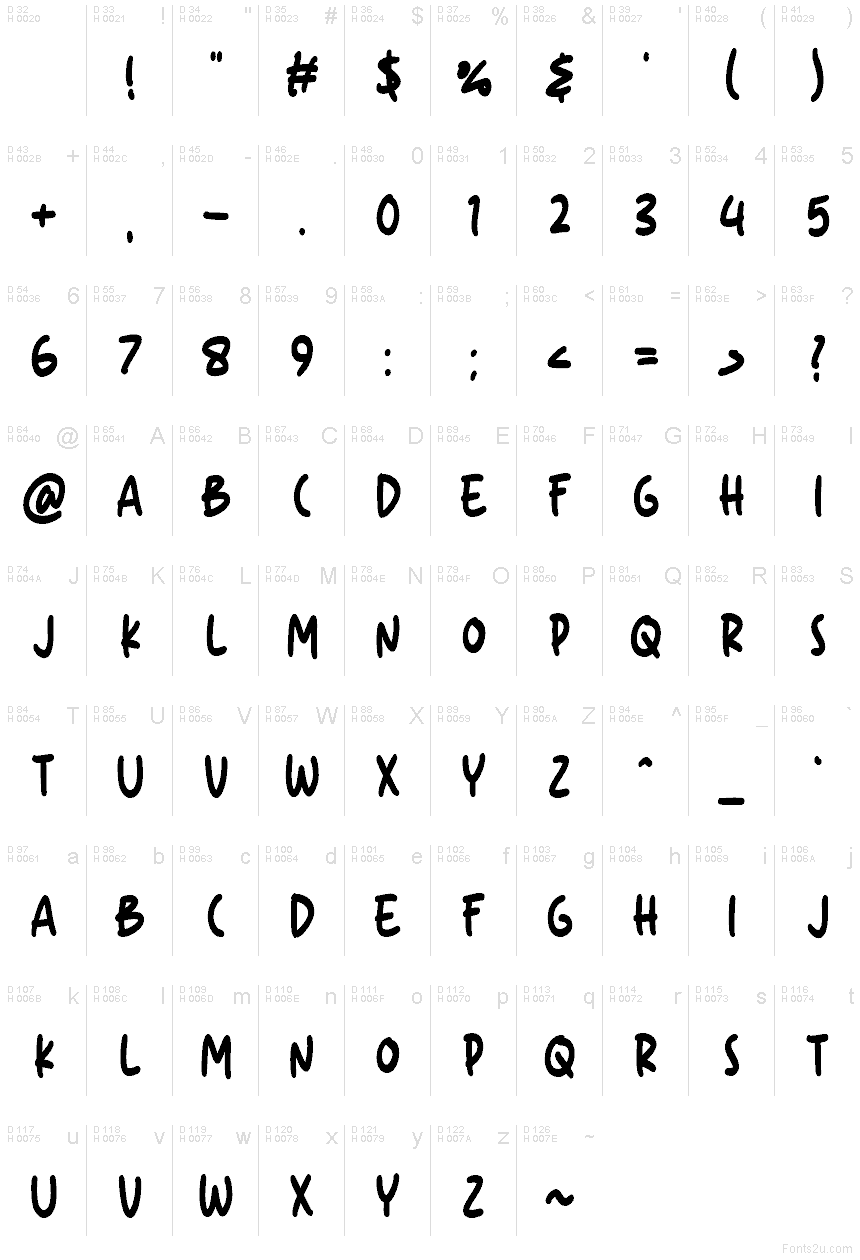
Smiley Notes
Smiley Notes font is a handwritten typeface by Origin Type that delivers a friendly feel through its relaxed aesthetic. Casual and informal, this condensed font mixes handcrafted vibes with modern solutions to achieve great balance, legibility, and style.
With the playful touch of this free handwritten font you can create branding projects, invitations, product labels or packages, posters, web graphics, headlines…